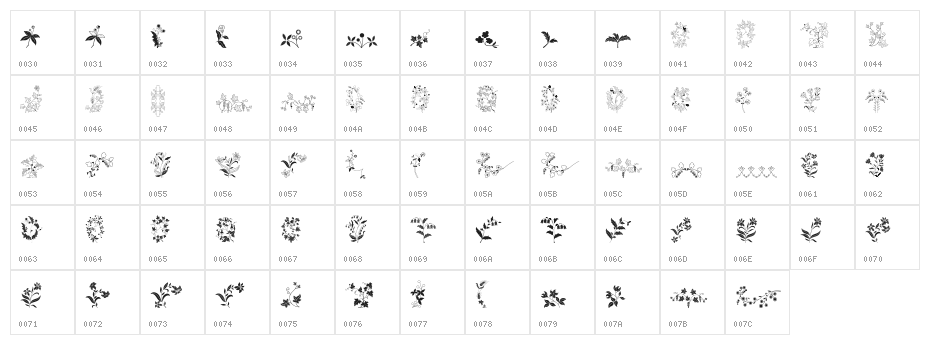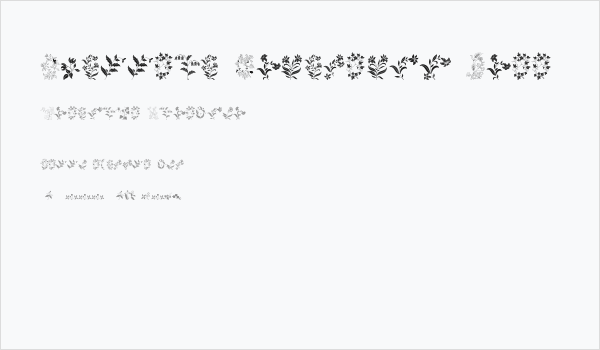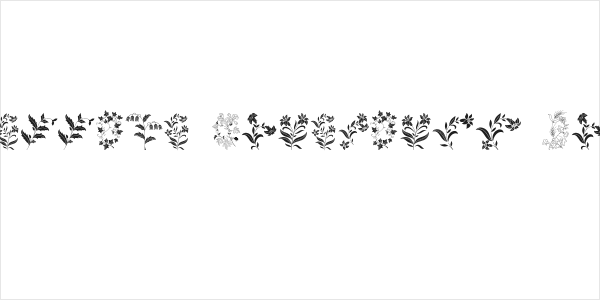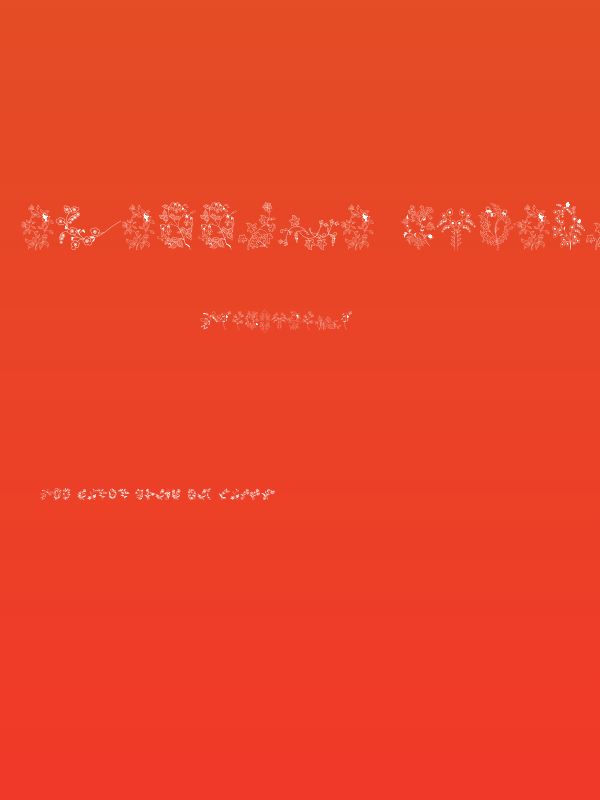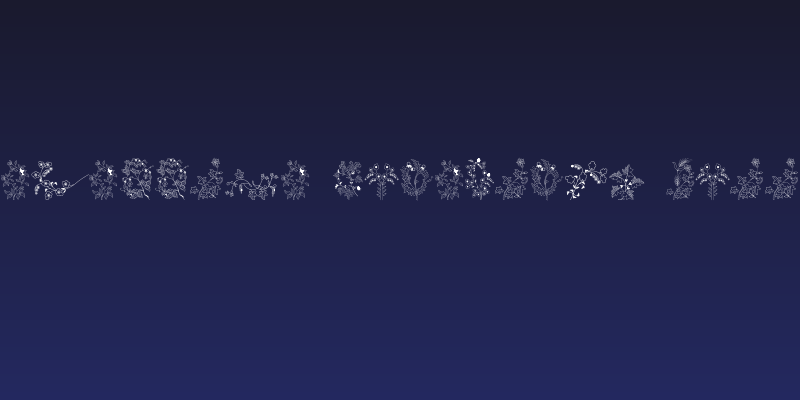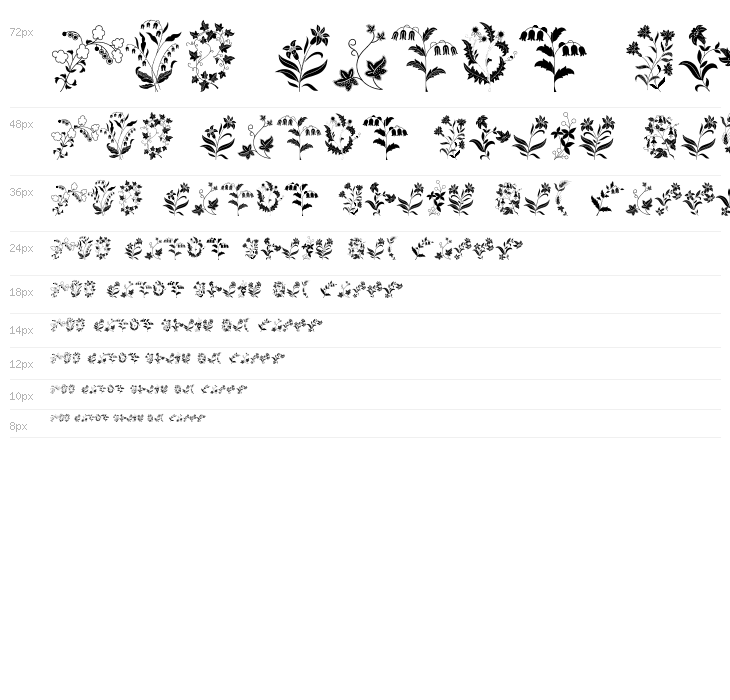
Azalleia Ornaments Free Font
Azalleia Ornaments Free Description
This is a decorative font featuring intricate floral and botanical designs. Each character is represented by a unique arrangement of flowers, leaves, and vines, creating an ornamental and artistic appearance. The designs are detailed and vary in complexity, offering a rich visual texture. This font is ideal for projects that require a natural or organic aesthetic, such as invitations, greeting cards, or nature-themed branding. The characters are consistent in style, with a harmonious blend of different floral elements, making it suitable for decorative purposes.
| Use Case | Logos, Decorative text |
| Proposed Projects | Ideal for invitations, greeting cards, nature-themed branding, and decorative projects. |